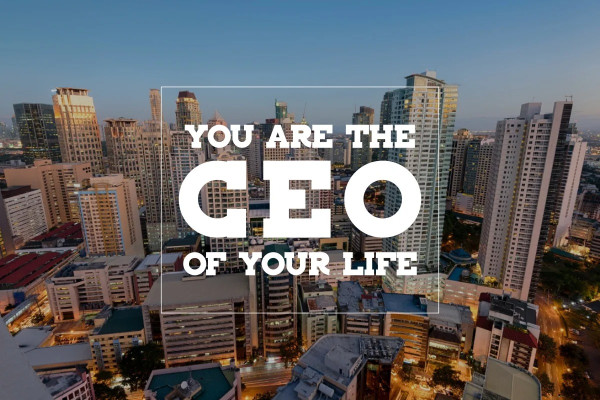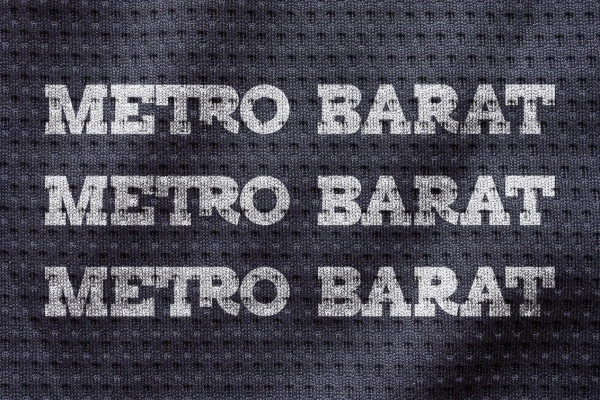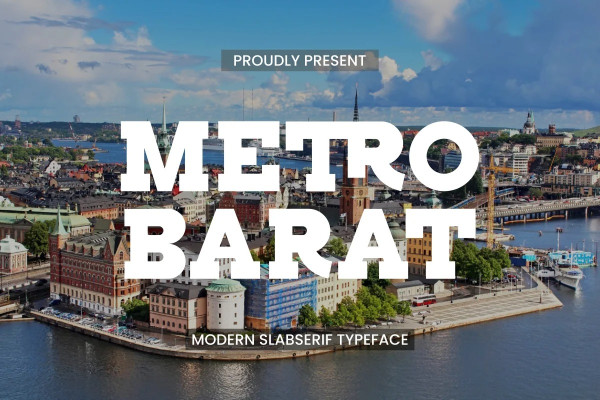
Metro Barat Font
Metro Barat Font – Modern Slab Serif Font. A stunning slab serif font, with a cool modern style for a variety of creative projects such as logos, t-shirts, jerseys, stickers, labels, jersey numbers, sports businesses, magazines, and many other creative ideas.